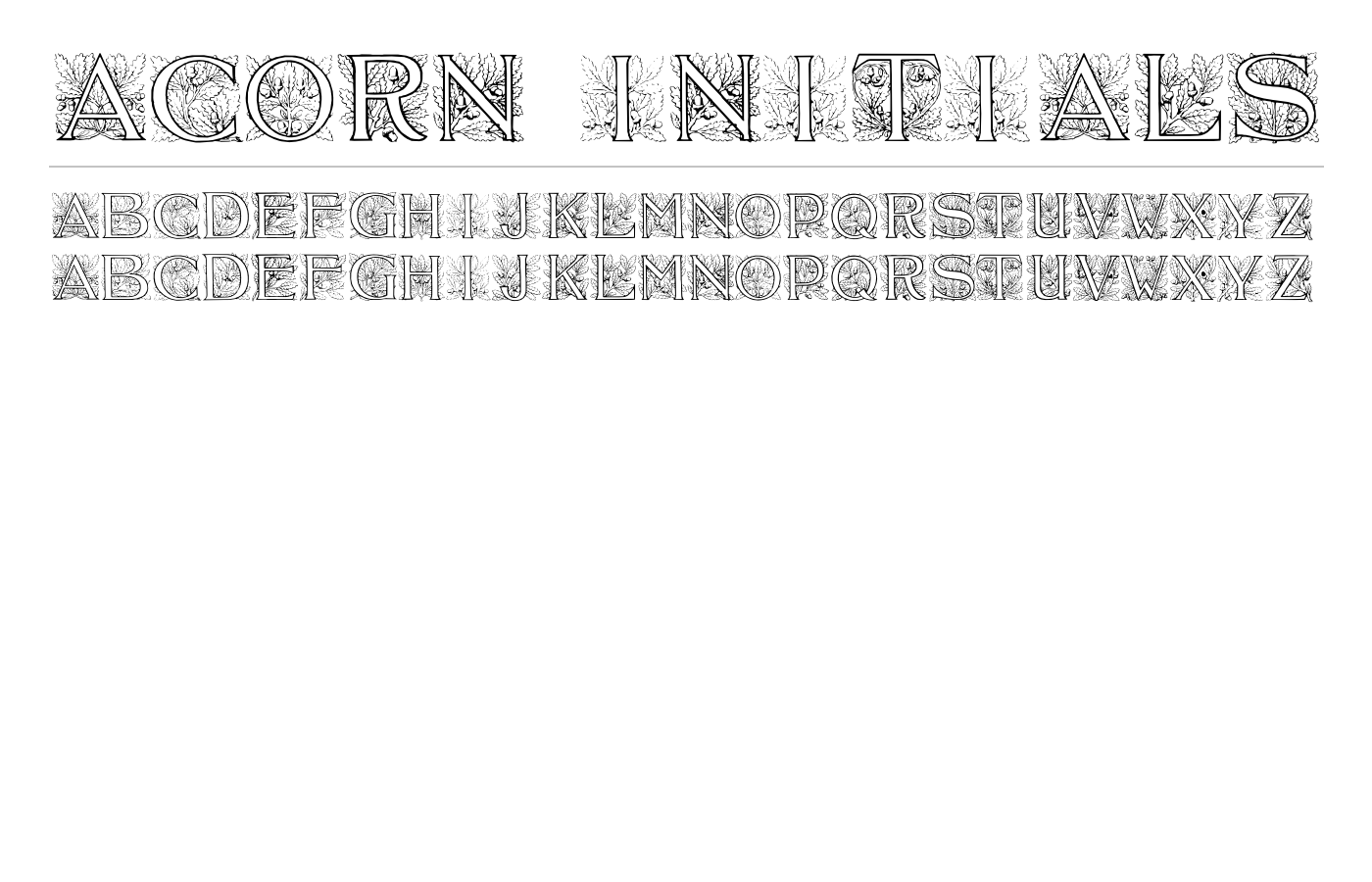
Acorn Initials is an elegant serif font featuring decorative, nature-inspired acorn and leaf patterns intricately woven around classic uppercase letterforms. This font exudes a vintage, ornate charm perfect for adding a touch of sophistication and whimsy to invitations, branding, or stationery where an eye-catching, ornamental style is desired. Its detailed design makes it ideal for headlines or logos rather than body text, creating a unique, memorable impression.
Acorn Initials Font